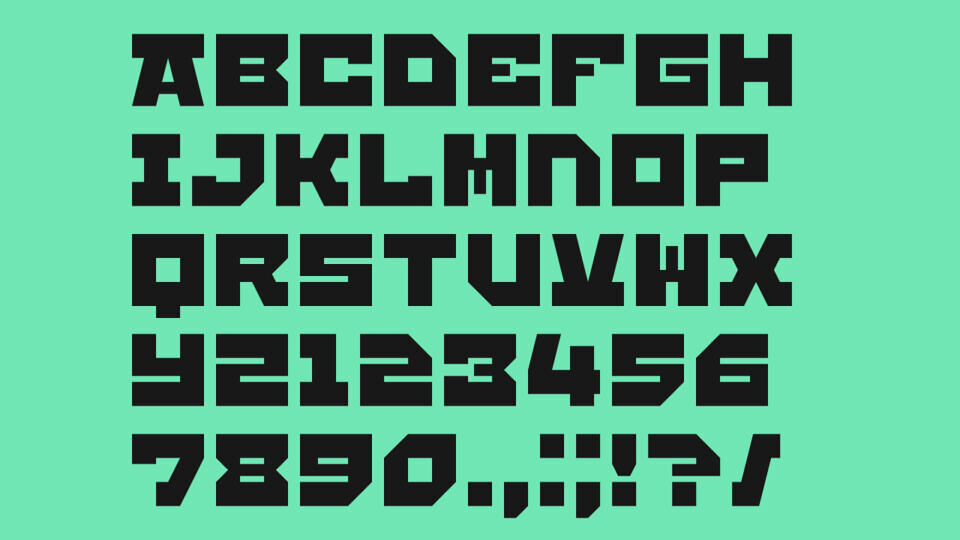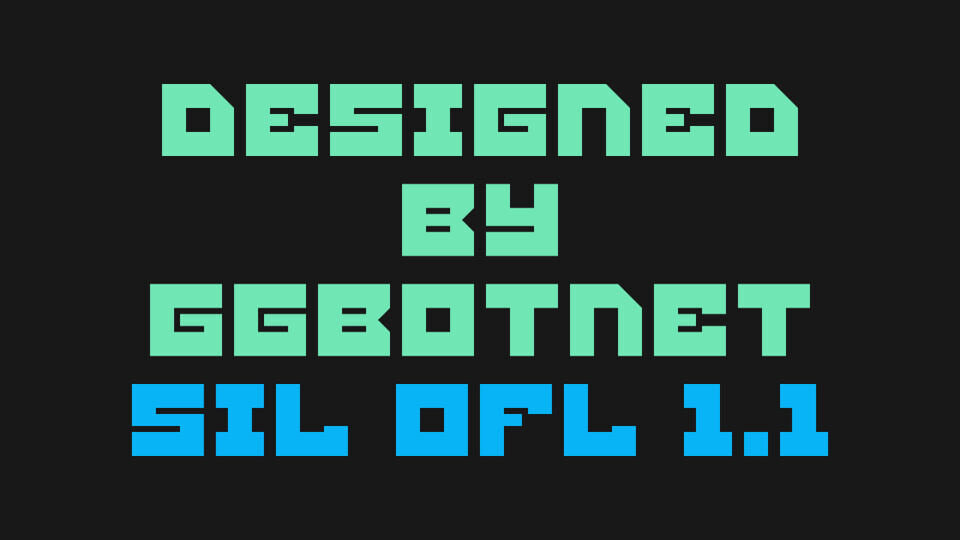
Achtung Bravo Font is a bold, geometric display typeface with a distinctive industrial and retro-futuristic edge. Created by GGBotNet and released under the SIL Open Font License 1.1, it features sharp geometric forms and blocky cuts, giving it a digital, arcade-like personality.
With uppercase letters, numbers, and punctuation, it’s ideal for posters, games, logos, and impactful headlines. Achtung Bravo stands out with its unique structure—perfect for creators seeking a loud, unapologetic type style that commands attention.